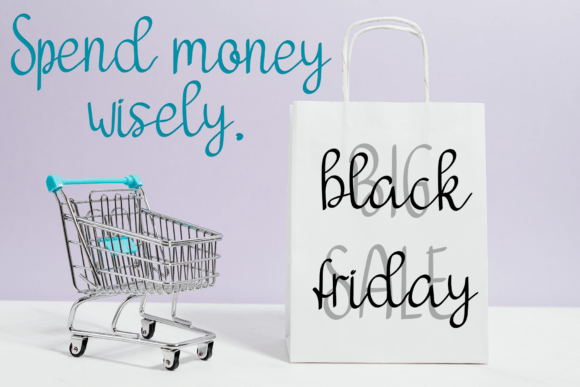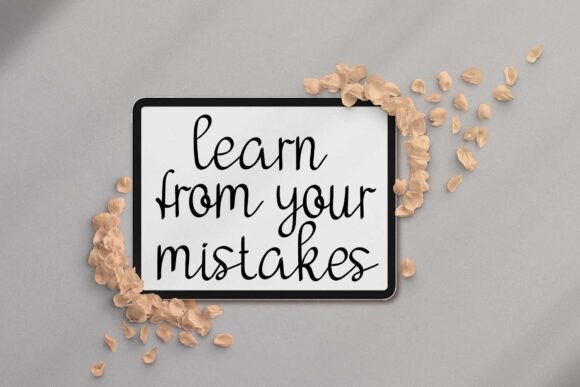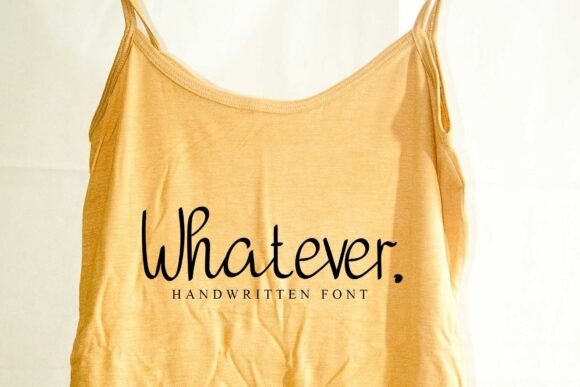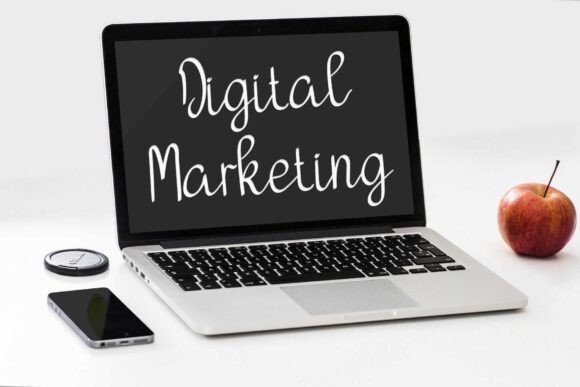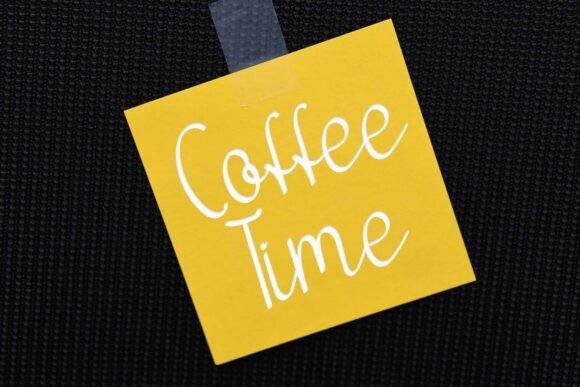
Introducing Birthday Font: The Perfect Addition to Your Design Collection
Are you looking for a unique and elegant font to make your projects stand out? Look no further than Birthday Font, a specially designed font that is perfect for a variety of creative endeavors. With its professional hand touch and versatile style, this font is ideal for use in greeting cards, party invitations, school assignments, and other important events.
What Makes Birthday Font So Special?
Birthday Font is crafted with care and attention to detail, making it a standout addition to any design collection. Its unique and elegant style is sure to impress, and its versatility makes it suitable for a wide range of projects. Whether you’re a designer, crafter, or simply someone who loves to get creative, Birthday Font is the perfect choice.
Perfect for Greeting Cards and Party Invitations
Birthday Font is particularly well-suited for use in greeting cards and party invitations. Its elegant style makes it perfect for wedding invitations, birthday cards, and other special occasion greetings. With this font, you can create beautiful and professional-looking cards that are sure to impress your friends and family.
Imagine being able to create stunning wedding invitations that set the tone for a beautiful and memorable day. Or, picture being able to craft unique and eye-catching birthday cards that make the recipient feel special. With Birthday Font, you can do just that.
Great for School Assignments and Creative Projects
Birthday Font is also a great choice for school assignments and other creative projects. Whether you’re a student looking to add some flair to a project or a teacher looking for a unique way to present information, this font is sure to impress. Its professional style makes it perfect for use in presentations, reports, and other academic projects.
Additionally, Birthday Font is a great choice for crafters who love to get creative with their projects. Whether you’re making cards, scrapbooking, or working on another type of craft project, this font is sure to add a touch of elegance and sophistication.
In conclusion, Birthday Font is a unique and elegant font that is perfect for a variety of creative endeavors. With its professional hand touch and versatile style, this font is ideal for use in greeting cards, party invitations, school assignments, and other important events. Whether you’re a designer, crafter, or simply someone who loves to get creative, Birthday Font is a great addition to any design collection.